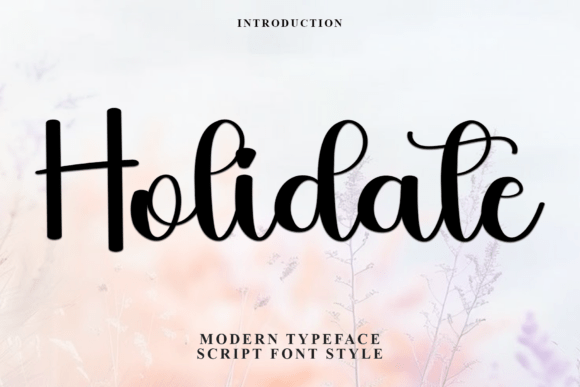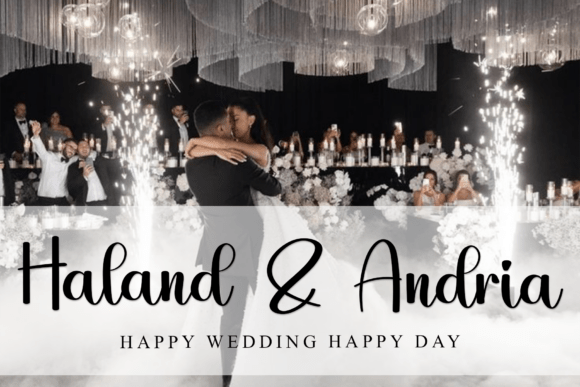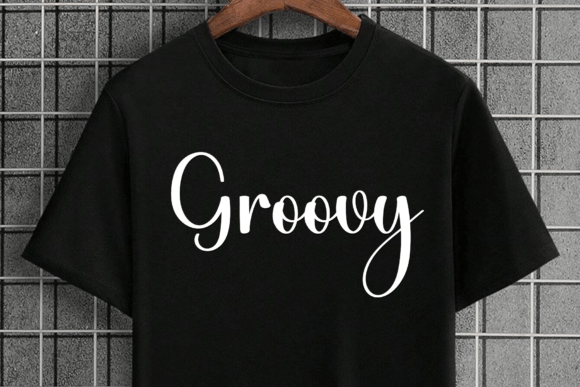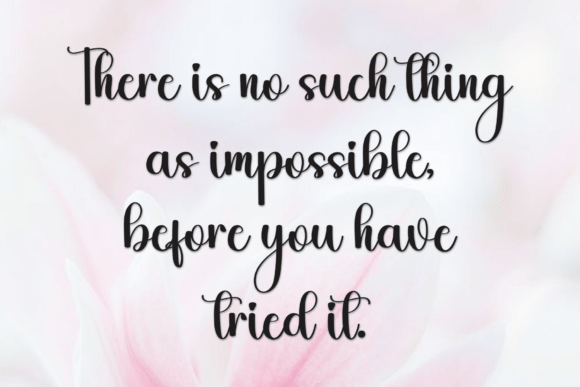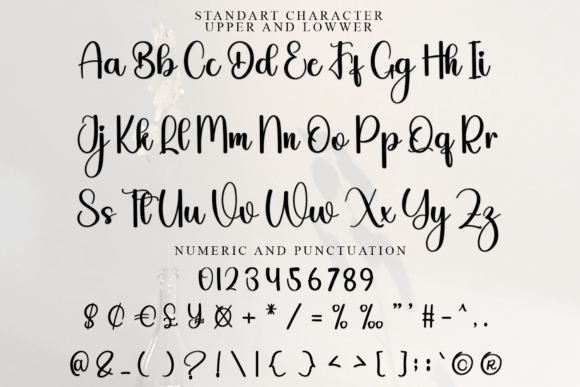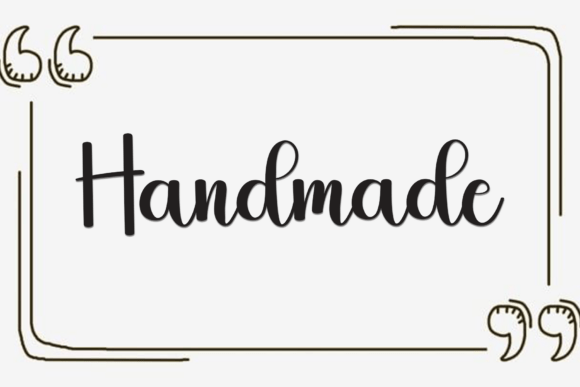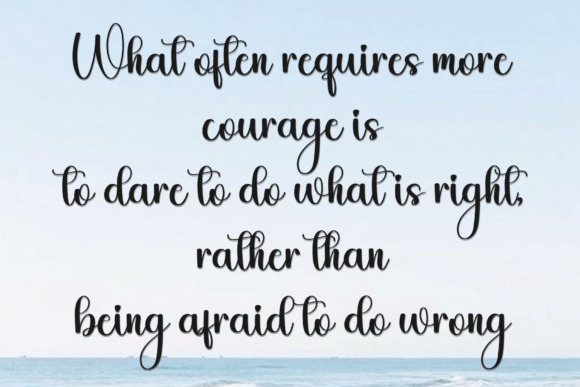
The Perfect Match for Your Design Projects
Have you ever stared at a blank page, trying to come up with the perfect font to capture the essence of your project? I know I have. It’s that moment of creative frustration, where nothing seems to fit, until suddenly, you stumble upon it – the perfect match. For me, that moment came when I discovered the Holidate Font.
This exquisite handwritten font is designed to elevate your projects to new heights. With its classy calligraphic influences and contemporary feel, the Holidate Font is sure to become a true favorite among designers. Whether you’re working on a wedding invitation, a holiday card, or a social media campaign, this font is the perfect addition to bring your ideas to life.
Holidate Font Key Features
- Unique Characteristics: Holidate Font features a unique blend of modern and traditional elements, making it perfect for creating festive and celebratory designs, from holiday cards to party invitations.
- Font Family: The font family includes 8 different styles: Regular, Italic, Bold, Bold Italic, Script, Script Italic, Outline, and Outline Italic, providing users with a wide range of creative options.
Holidate Font Review
Overall, I’m impressed with the Holidate Font. Its unique blend of festive and playful elements makes it perfect for holiday-themed projects, especially those related to Christmas and New Year’s Eve. ✨ The font’s bold lines, ornaments, and decorations add a touch of whimsy and sophistication to any design.
One of the standout features of Holidate is its versatility. It can be used in a variety of contexts, from greeting cards and social media posts to packaging and advertising materials. ✨ The font’s flexibility in terms of size and color also makes it easy to customize and integrate into different design schemes.
- ⚠️ Limited usage for non-holiday projects: While Holidate can be used in non-holiday contexts, its festive feel may not be the best fit for everyday designs.
- ⚠️ Limited character set: The font’s character set may not be as extensive as some other fonts, which could limit its use in certain contexts.
Overall, I think Holidate is a great addition to any designer’s toolkit, especially those working on holiday-themed projects. With its unique style and versatility, it’s sure to add a touch of festive flair to any design. ✨
Getting the Most Out of Holidate Font
For the best results, use Holidate Font in bold or italic styles to add emphasis to your text. Experiment with different font sizes and colors to create visual interest.
Holidate Font is ideal for:
- Christmas and holiday-themed designs
- Gift and card ideas
- Winter and snow-themed designs
Alternatives to Holidate Font
1. Alex Brush
Alex Brush is a elegant script font perfect for romantic invitations, wedding stationery, and other special occasions. It features a flowing, handwritten style with a touch of sophistication.
Comparison to Holidate Font: Alex Brush has a more refined and polished look compared to Holidate Font, making it ideal for high-end or formal events. It lacks the playful, cursive feel of Holidate Font but offers a unique and sophisticated alternative.
Great Vibes is a modern script font designed for creating a fun and lively atmosphere. It features a bold, dynamic style with a touch of whimsy, making it perfect for events like music festivals, parties, or summer gatherings.